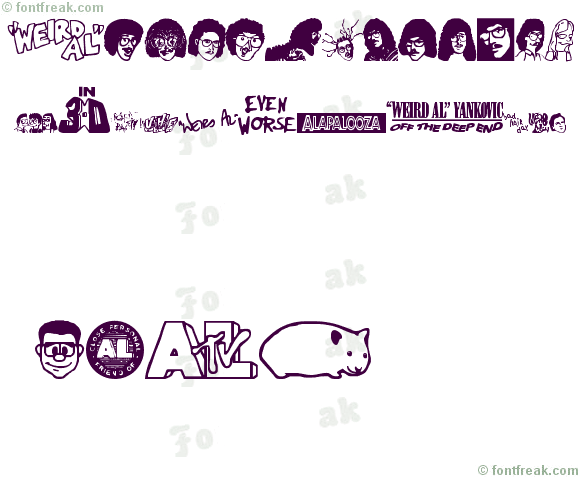
Weird Al Yankobats
About Weird Al Yankobats
The "Weird Al Yankobats" font by Chris Pirillo is a unique display typeface that captures the playful and eccentric spirit of its namesake. This font is characterized by a whimsical, cartoonish style that blends elements of fun and creativity. The letters exhibit a bold stroke weight, which adds to their visibility and impact. The uneven spacing and varied heights of the characters contribute to a lively, dynamic appearance, making it an excellent choice for projects that require a touch of humor and personality. Decorative elements, such as exaggerated curves and quirky shapes, further enhance its distinctive charm.
This font is particularly well-suited for a variety of creative applications. It can be used effectively in promotional materials for music events, capturing the essence of a lively concert atmosphere. Additionally, it shines in designs for children's books or playful merchandise, where its lightheartedness can resonate with younger audiences. The "Weird Al Yankobats" font also works well for quirky restaurant menus or food truck branding, giving a fun twist to the dining experience. Graphic designers and content creators will find it invaluable in crafting engaging social media graphics and digital content that stands out in a crowded market.